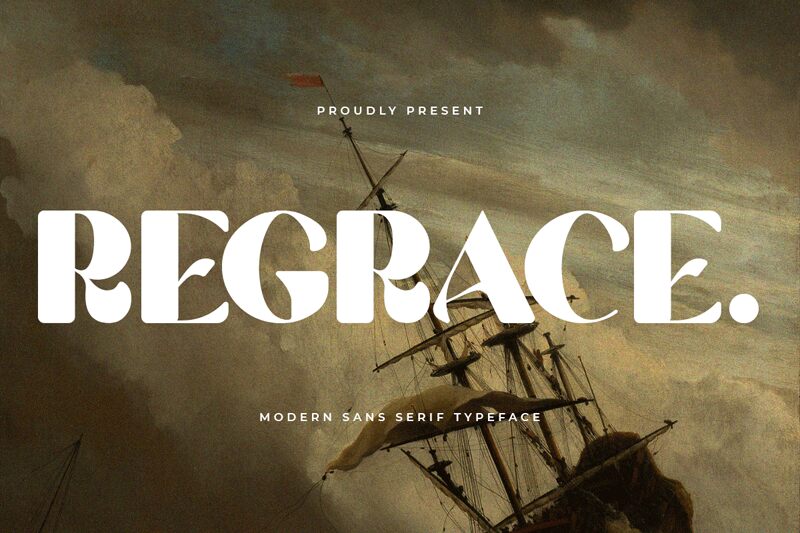
Regrace font by Kong Font evokes a sense of nostalgic charm with its retro-inspired design. As a bold display typeface, it boasts high contrast strokes that enhance its elegant and expressive nature. Regrace font brings immediate visual impact and artistic flair, elevating project aesthetics with added warmth and flair.